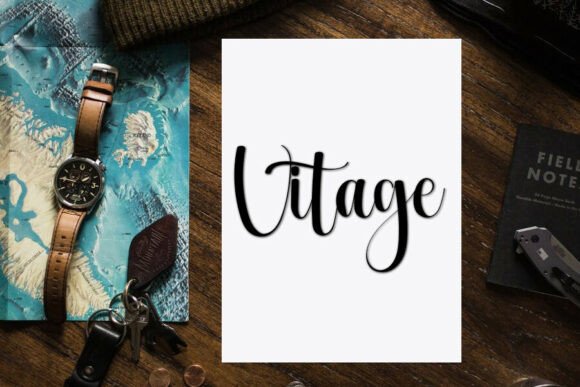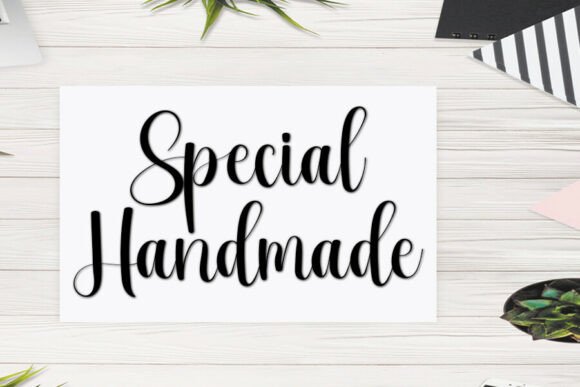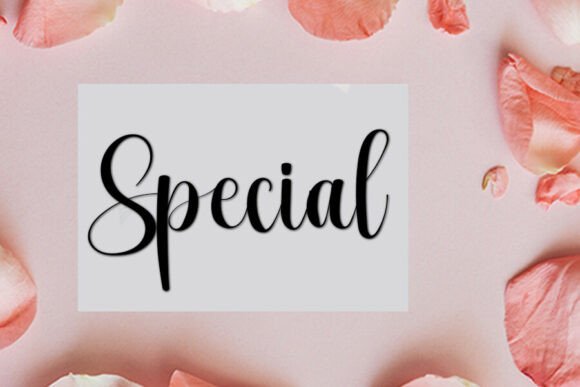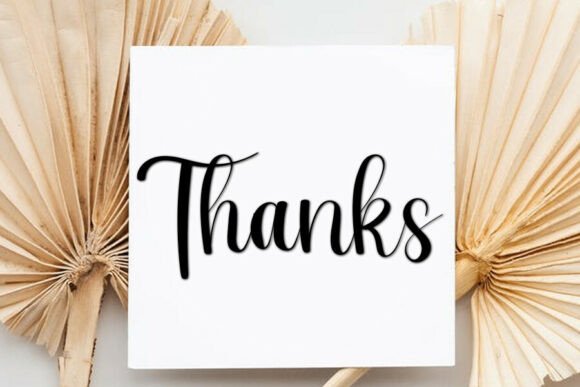
Introducing Happy Newyear Font: Elevate Your Designs with a Fresh and Aesthetically Appealing Typeface
As a designer or crafter, you’re constantly on the lookout for innovative and stylish typography to give your projects a unique edge. Look no further than the Happy Newyear font, a vibrantly fresh and aesthetically appealing typeface that’s sure to bring a distinctive charm to your designs. With its effortless elegance and versatility, Happy Newyear is the perfect addition to your typography arsenal.
Endless Applications for Happy Newyear Font
One of the standout features of Happy Newyear is its incredible versatility. This fantastic font can be used in a myriad of applications, from digital designs to print materials. Here are just a few examples of how Happy Newyear can elevate your projects:
- YouTube Banners: Create eye-catching banners that showcase your brand’s personality with Happy Newyear. Its modern and sleek design ensures your banner stands out from the crowd.
- Cover Logo Mockups: Give your logo a professional and polished look with Happy Newyear. This font breathes life into your logo, making it more engaging and memorable.
- Wedding Invitations: Add a touch of elegance and sophistication to your wedding invitations with Happy Newyear. Its beautiful and refined design makes it perfect for formal events.
- ID Card Designs: Create visually appealing and professional ID cards with Happy Newyear. This font enhances any ID card design, making it more modern and eye-catching.
- Flyers: Add a pop of personality to your flyers with Happy Newyear. Its unique charm and flair make it perfect for promoting events, products, or services.
- Crafts: Happy Newyear font is also ideal for crafters, adding a touch of simplicity and elegance to any craft project.
The Power of Simplicity: Why Happy Newyear Font Stands Out
In a world where complex and ornate typography often takes center stage, Happy Newyear font proves that sometimes, less is indeed more. The simplicity of this font is its greatest strength, making it incredibly versatile and easy to pair with other design elements. This understated elegance ensures that your designs remain focused and effective, without overwhelming the viewer.
In conclusion, Happy Newyear font is a game-changer for designers and crafters looking to elevate their projects with a fresh and aesthetically appealing typeface. Its versatility, simplicity, and unique charm make it the perfect addition to your typography collection. Whether you’re working on digital designs, print materials, or crafts, Happy Newyear font is guaranteed to bring a distinctive appeal to your work. So why wait? Discover the power of Happy Newyear font today and take your designs to the next level!